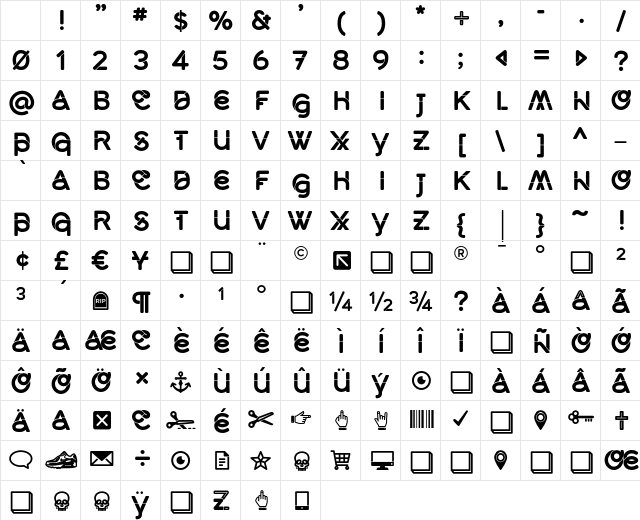
Complete Middlecase Bold Solid glyph index. Displaying only characters natively supported by Middlecase Bold Solid font.
Middlecase is a composed and adaptable typeface that performs quietly and consistently across a wide range of design contexts. Its bold stroke weight gives it real presence on the page.